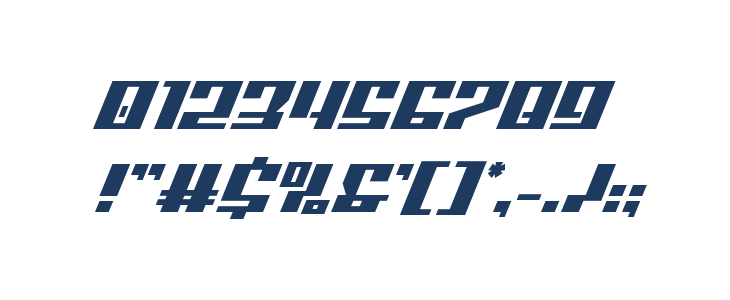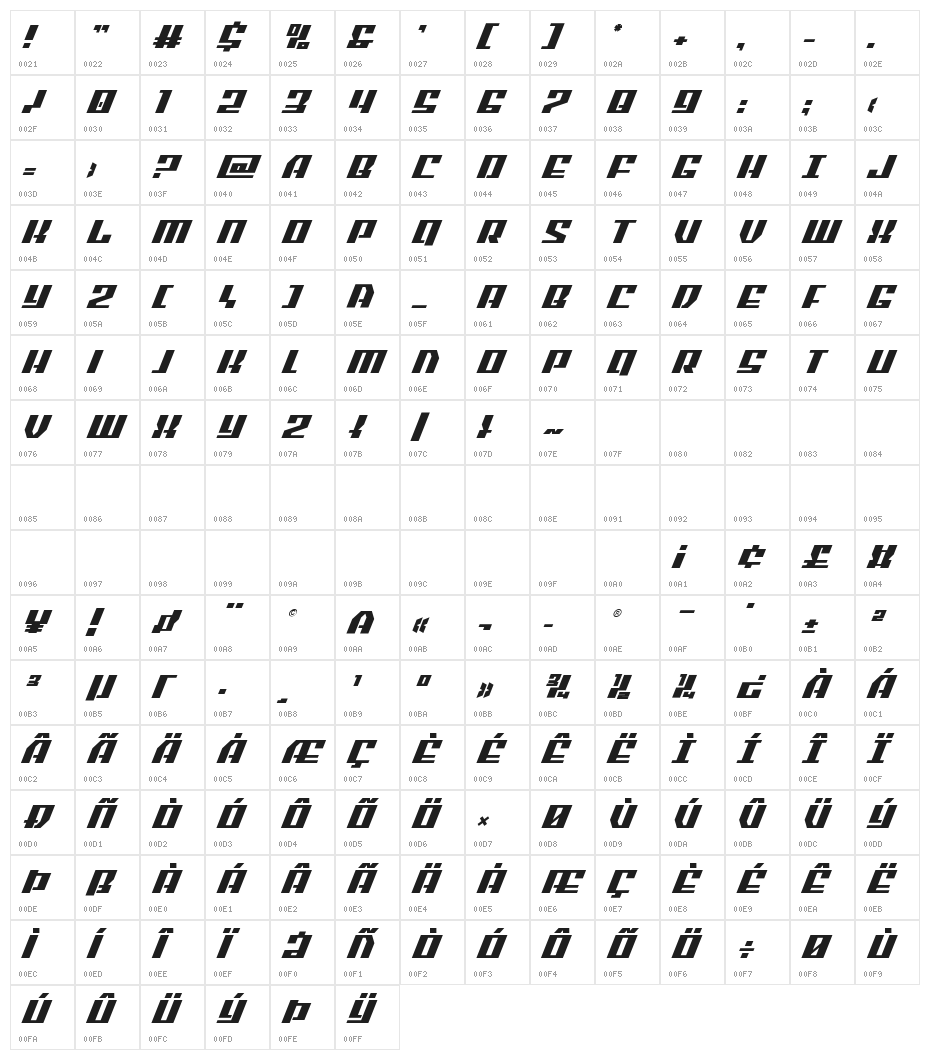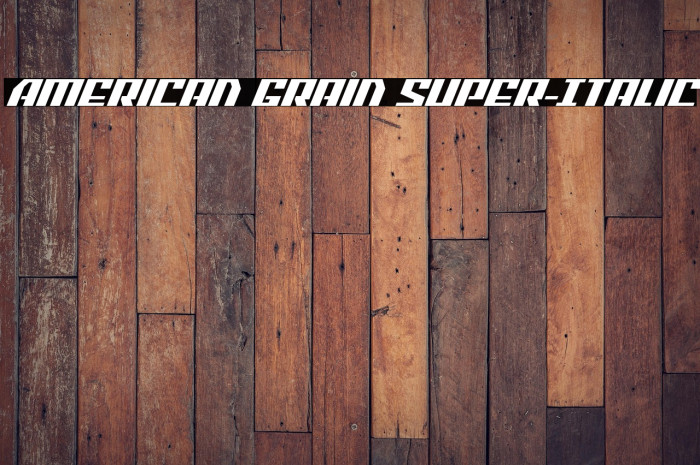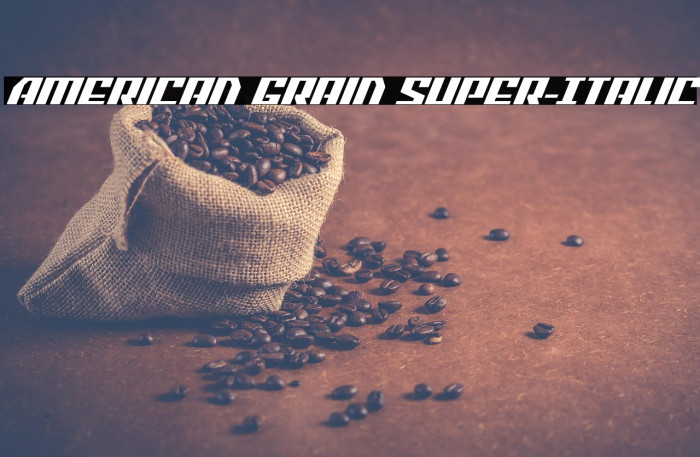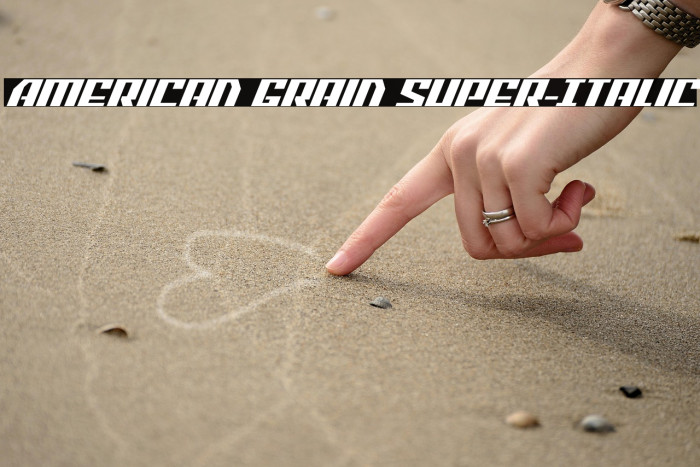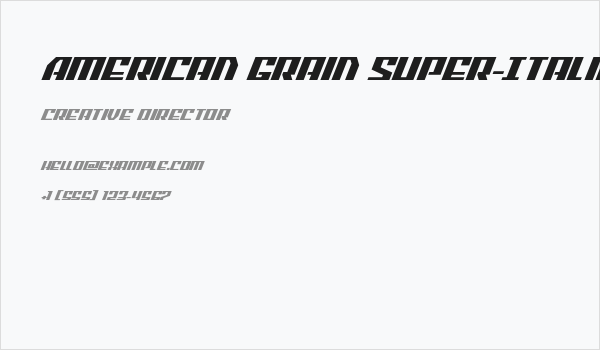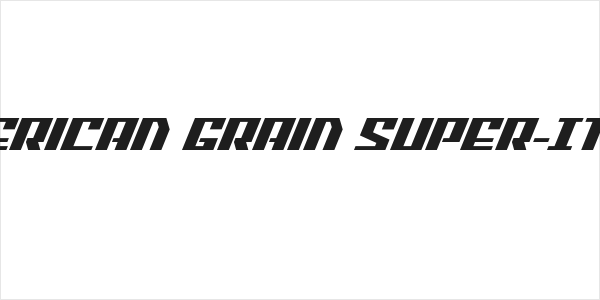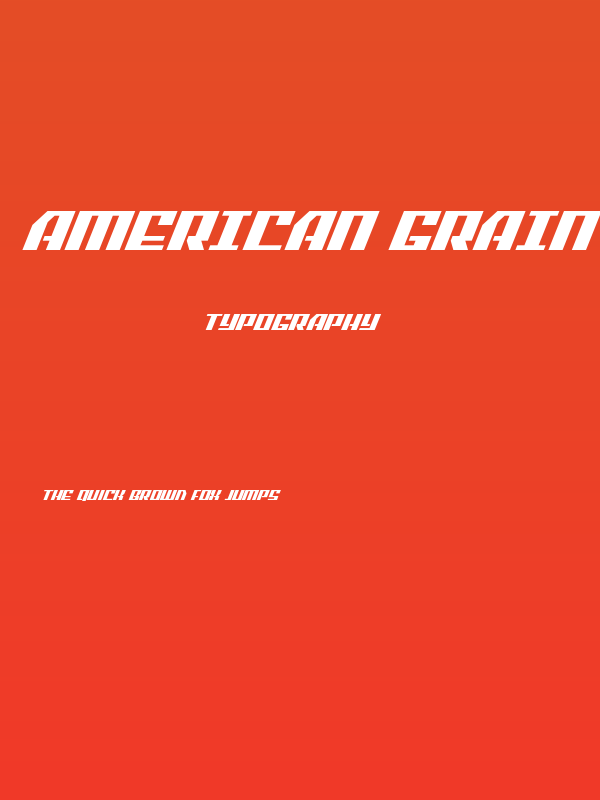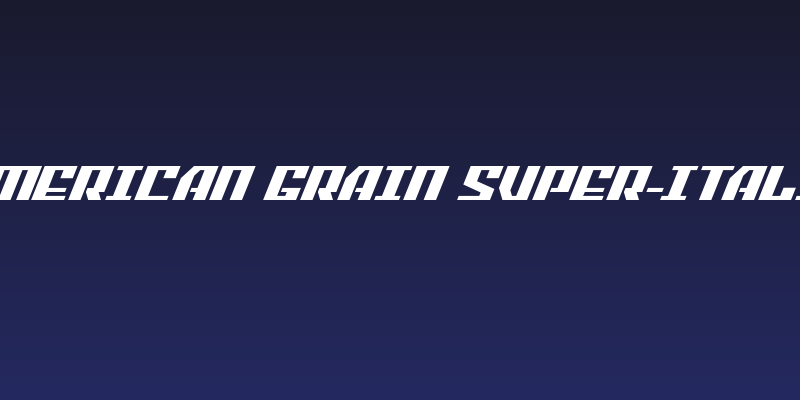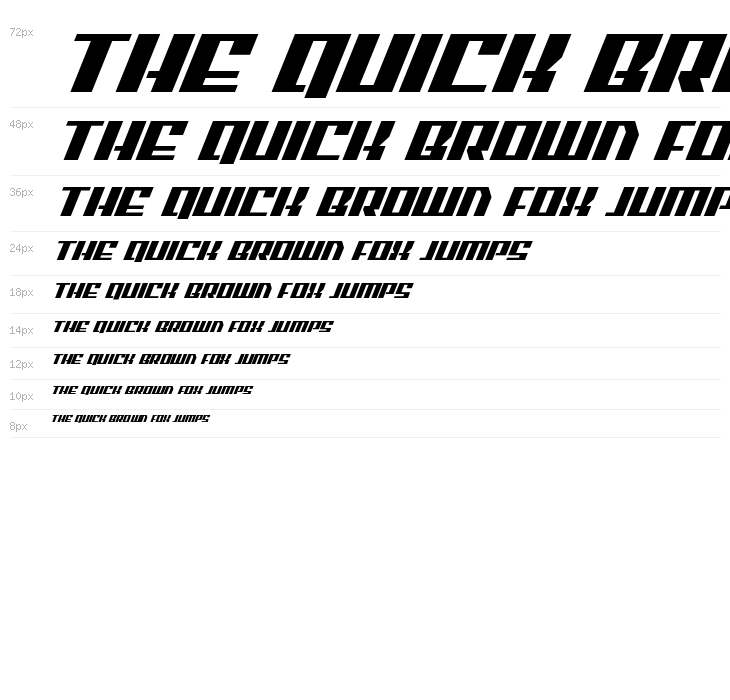
American Grain Super-Italic Font
American Grain Super-Italic Description
This font features a bold and dynamic style with a strong italic slant, giving it a sense of motion and energy. The characters are angular and geometric, with sharp edges and a futuristic appearance. The uppercase and lowercase letters maintain a consistent design, while the numerals and special characters complement the overall aesthetic. The font's bold weight and unique style make it stand out, suitable for projects that require a modern and impactful look.
| Proposed Projects | Ideal for sports branding, video game titles, posters, and dynamic advertising campaigns. |